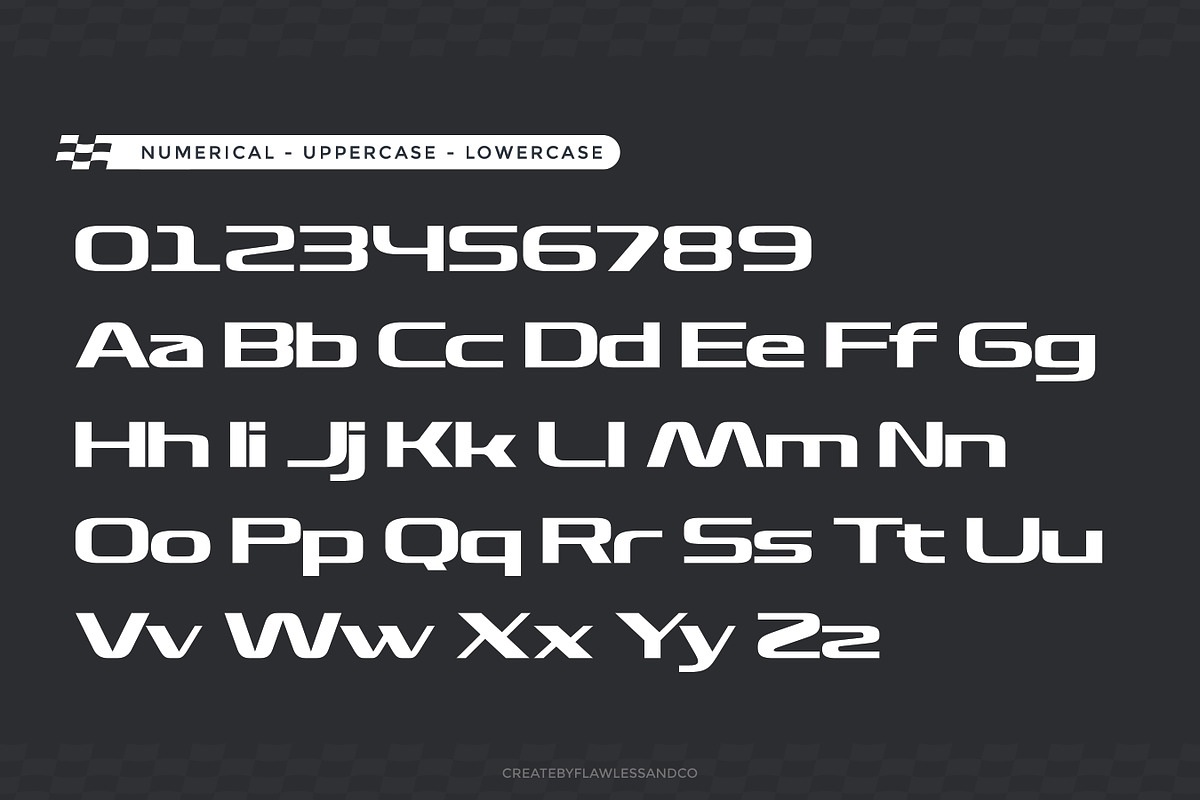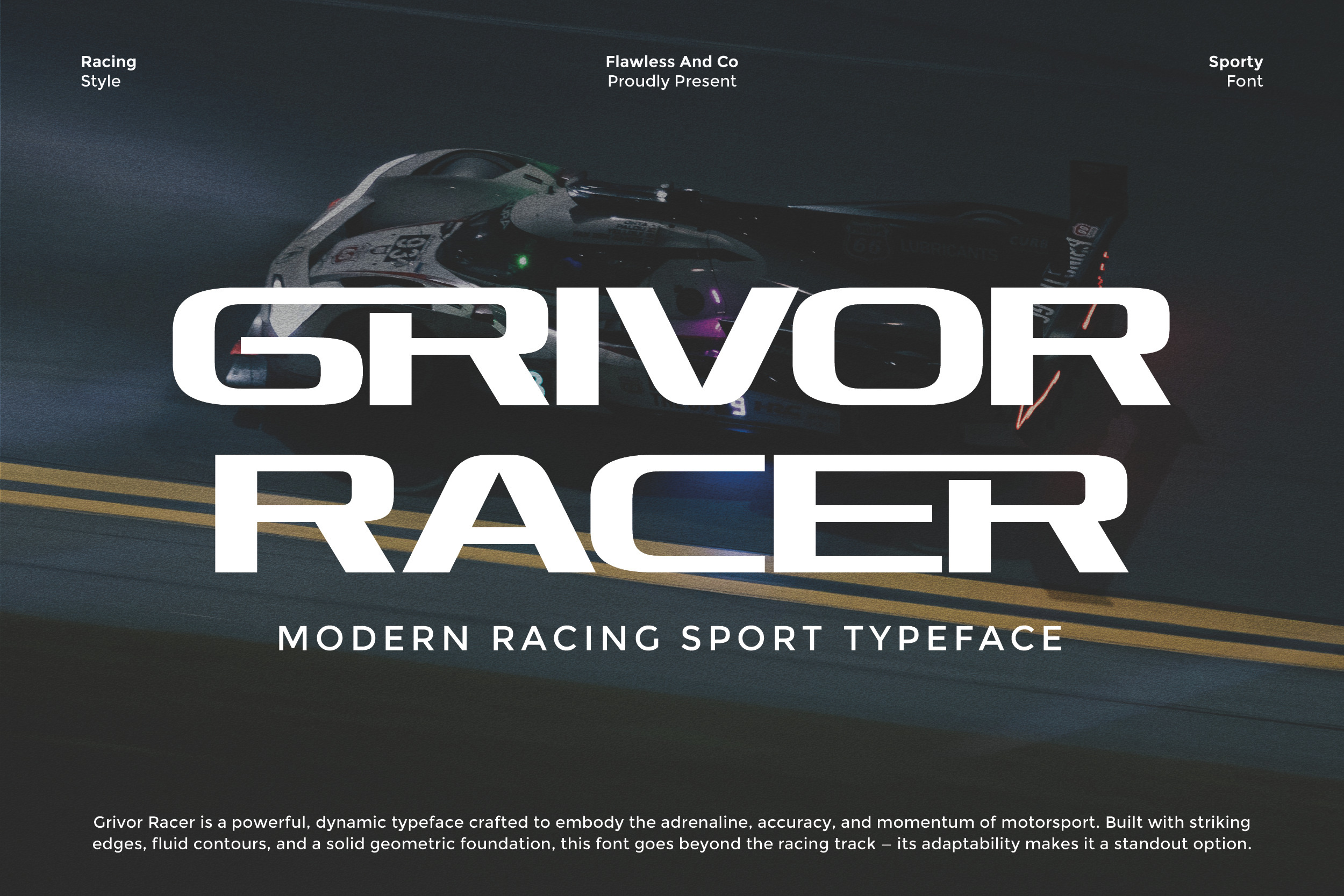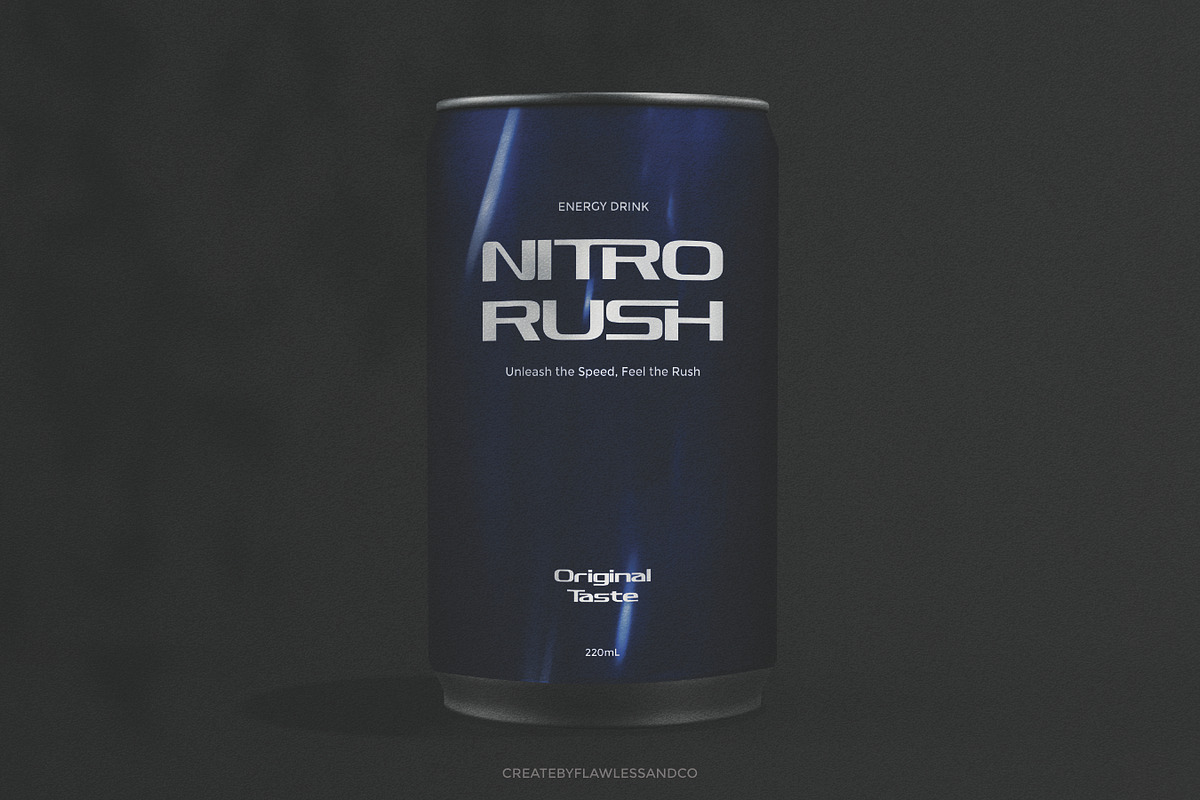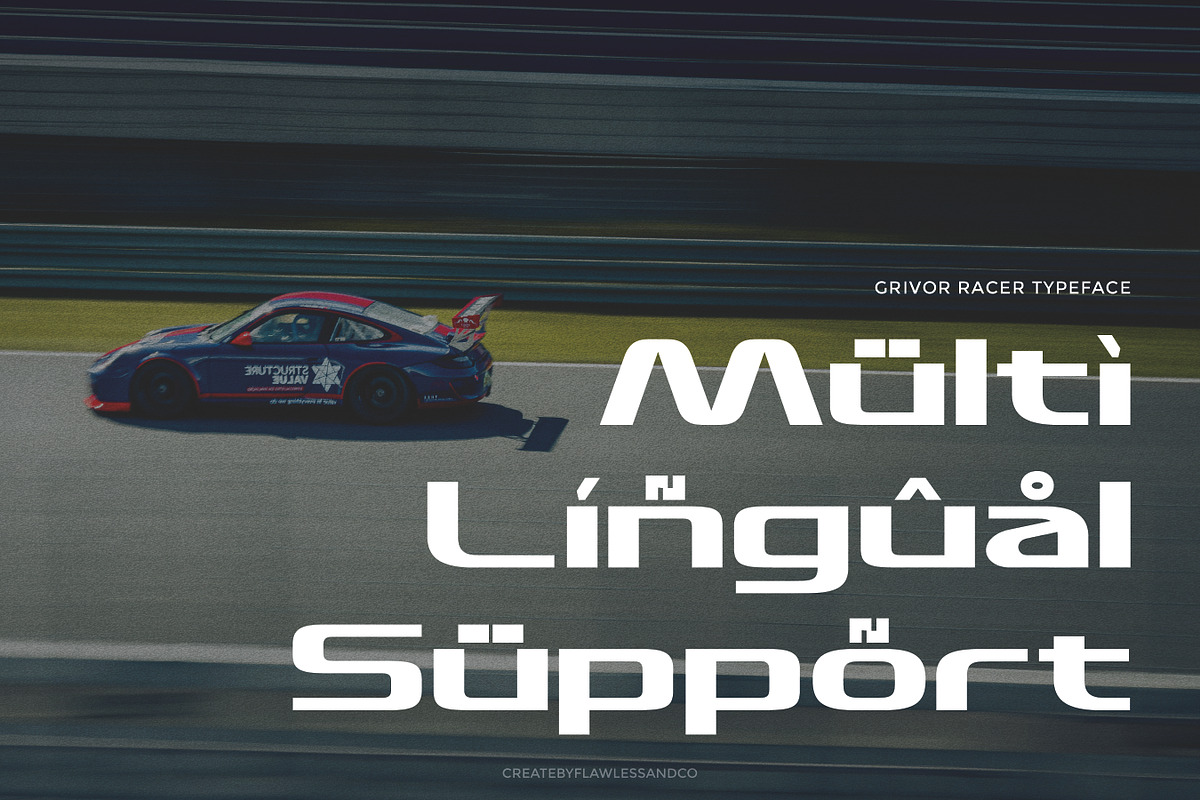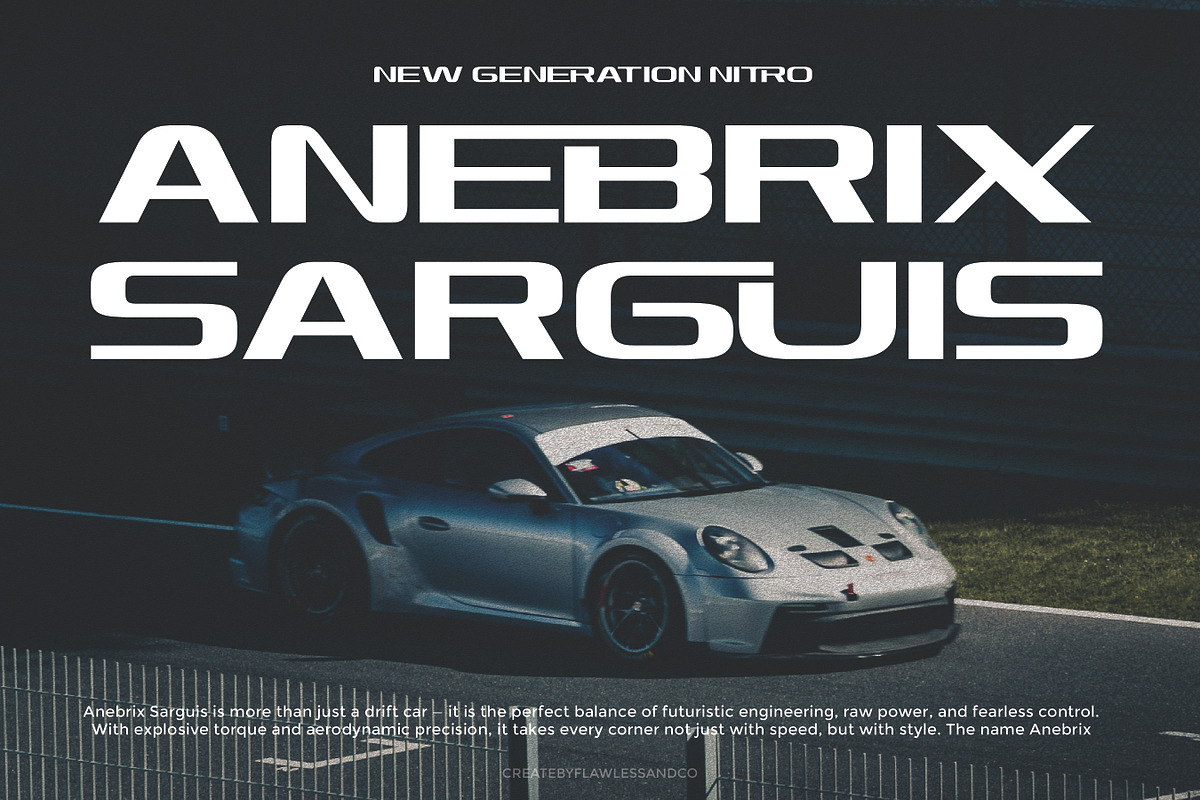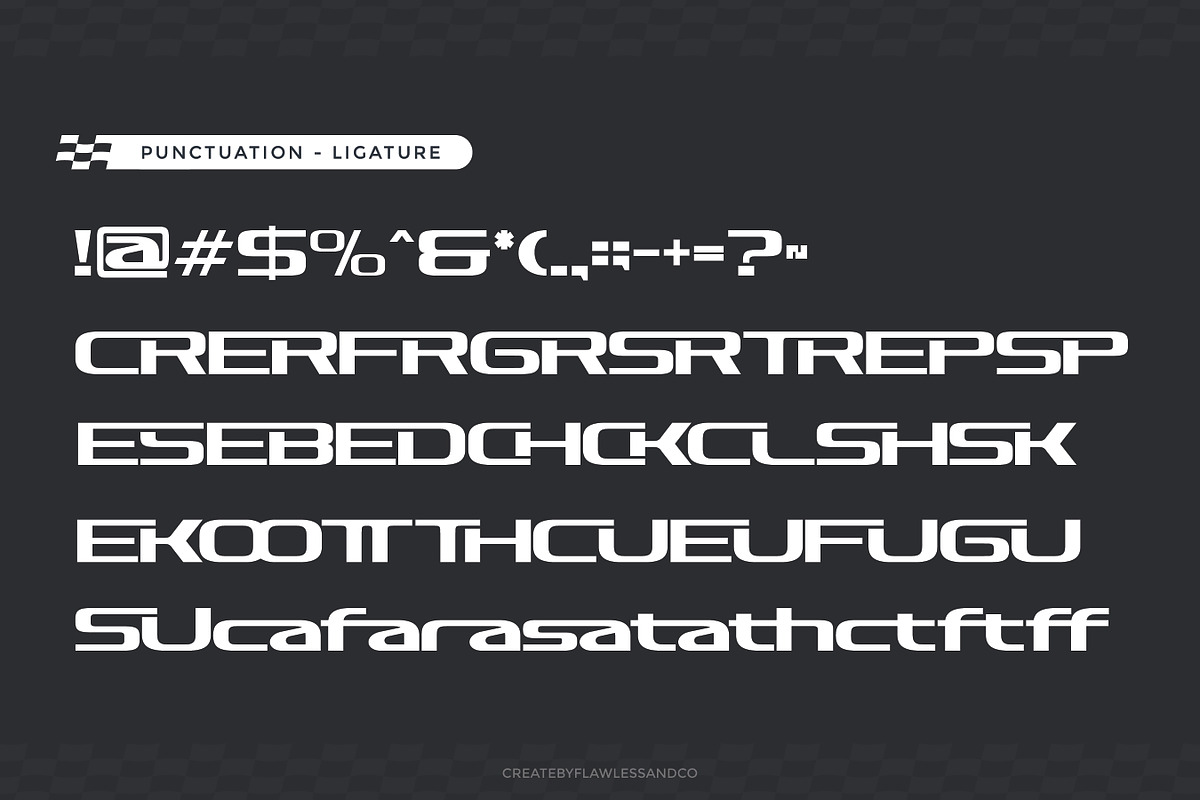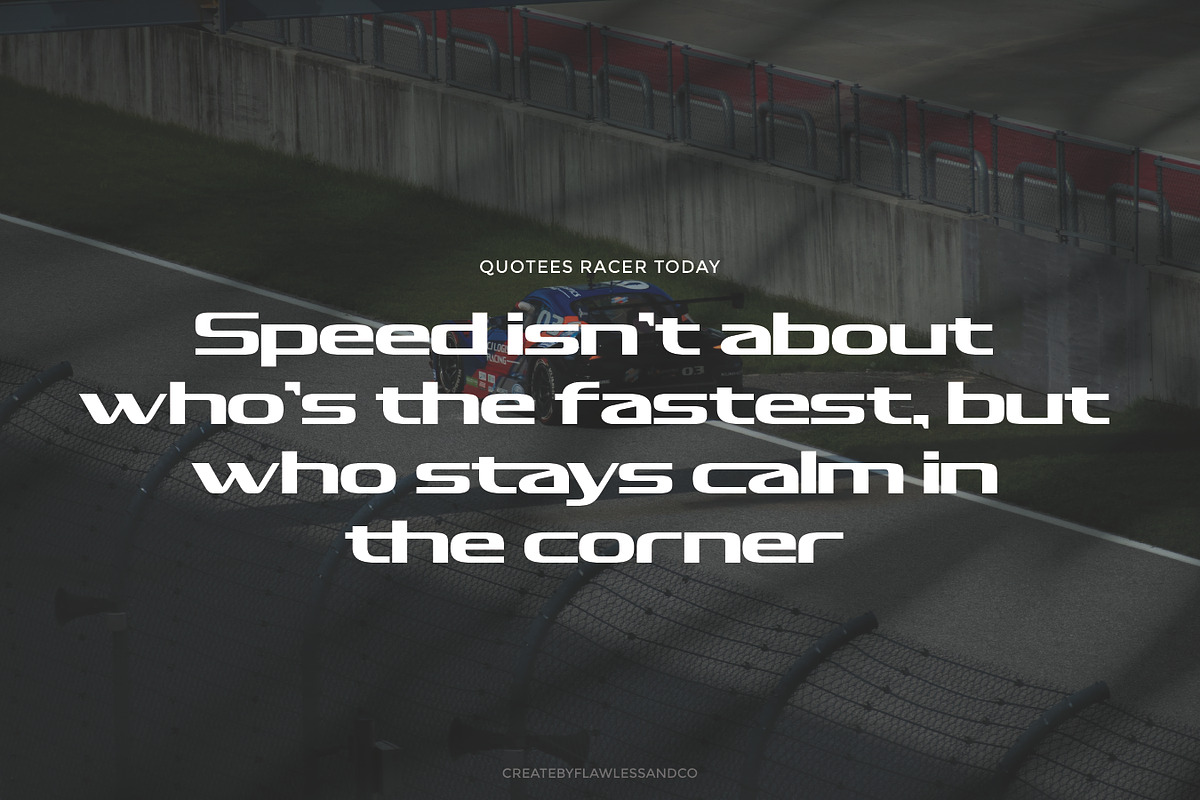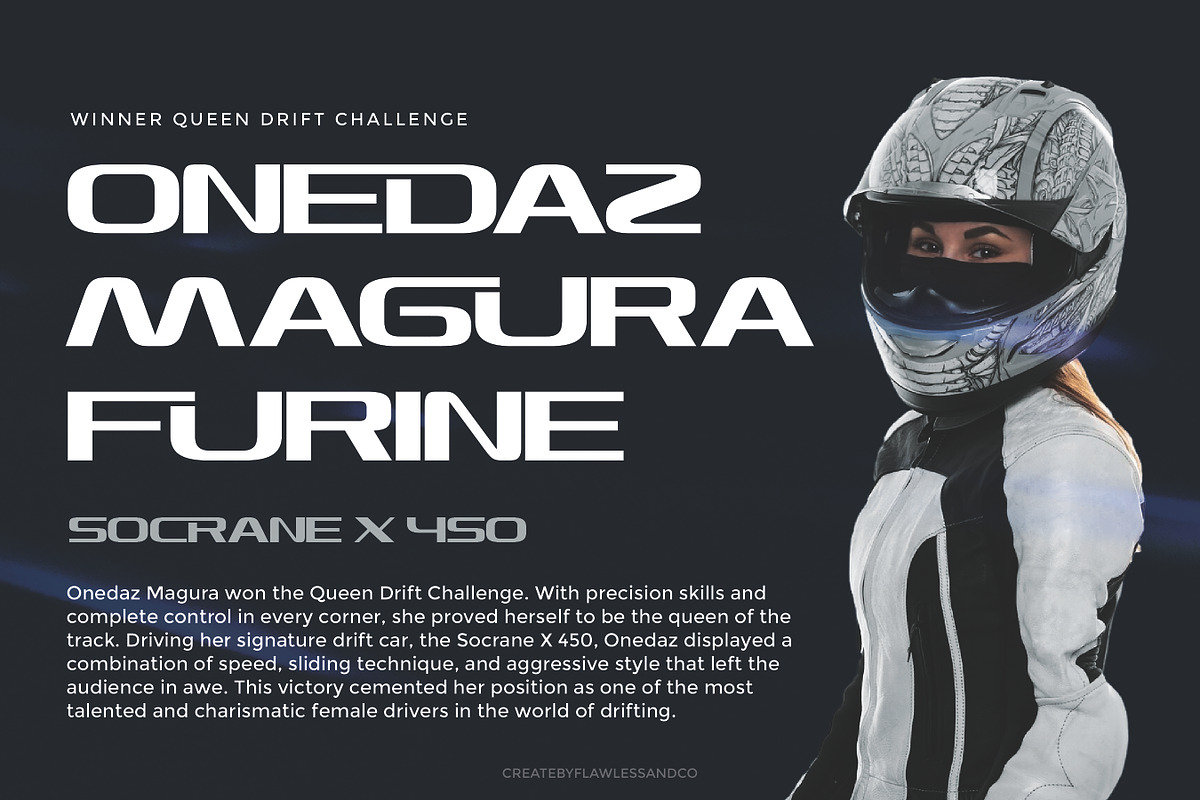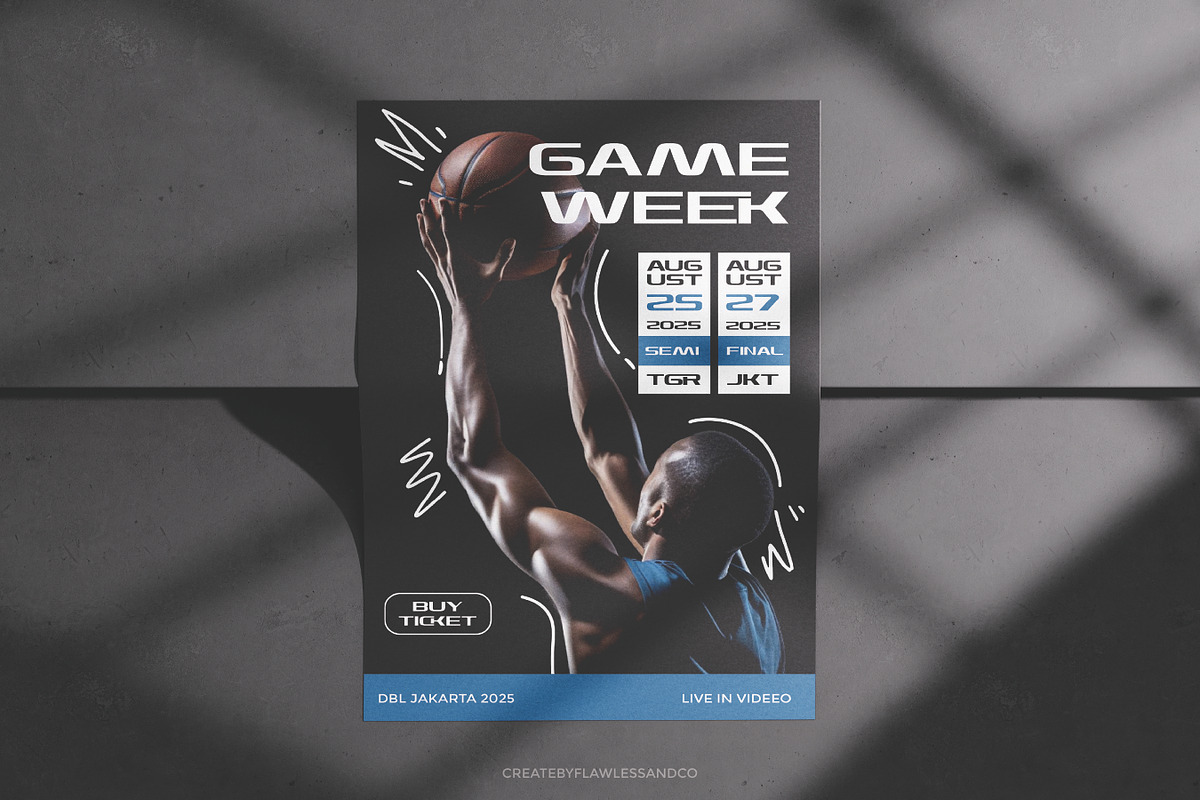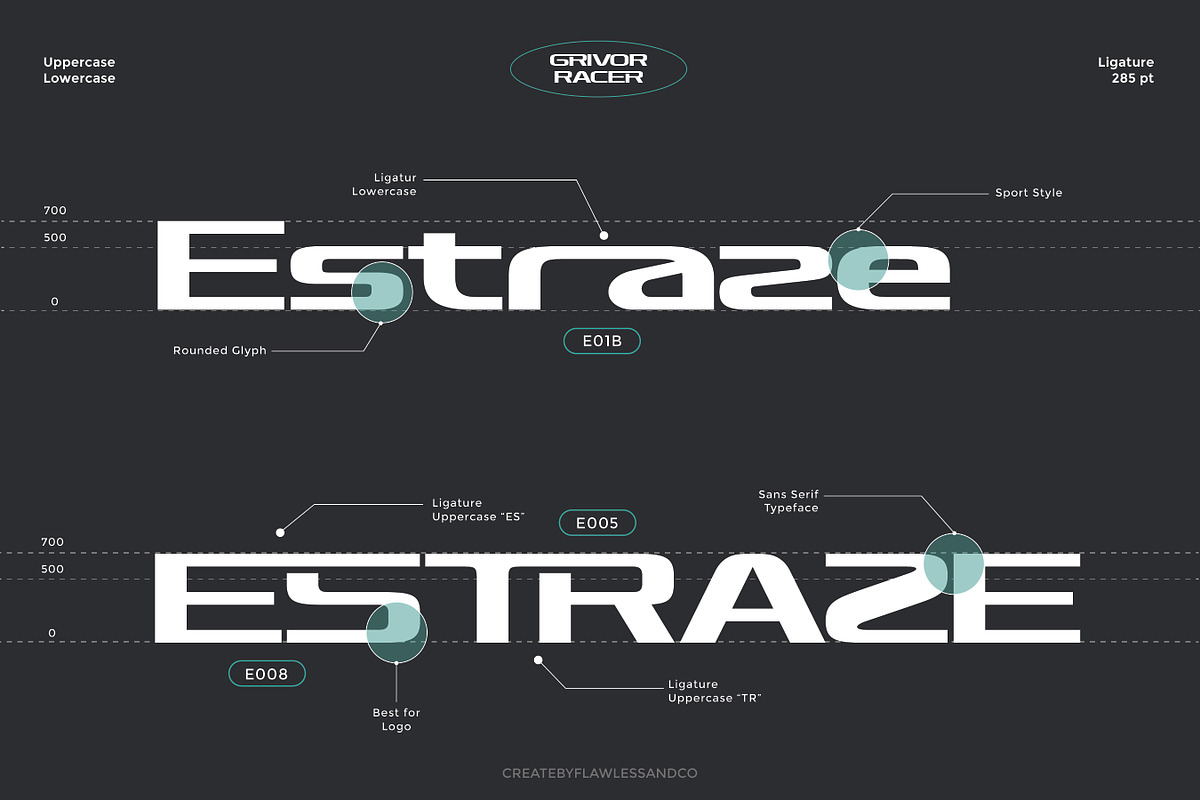
Grivor Racer - Modern Sport Font
Grivor Racer - Modern Sport
Grivor Racer is a bold and high-energy typeface designed to capture the speed, precision, and power of modern motorsport. With sharp cuts, aerodynamic curves, and a geometric build, this racing sport logo font is made to fuel adrenaline-driven designs. Perfectly balanced between aggressive style and versatile readability, Grivor Racer stands out not only on the track but also in branding, logos, posters, and sports-themed projects.
Who Should Use Grivor Racer?
Grivor Racer is made for designers, creatives, and brands who want to inject speed, energy, and a sporty edge into their visuals. It’s the ideal choice for:
- Sports teams and event organizers seeking bold, dynamic branding
- Automotive and motorsport industries looking for adrenaline-packed typography
- Designers working on energetic logos, posters, and merchandise
- Fitness, racing, and streetwear brands aiming for a modern, high-impact look
- Creatives who want a typeface that embodies movement, precision, and power
A Must-Have Font for "Brand and Logo" Creators and Designers
Grivor Racer is the ultimate font for brand builders and logo creators who want to stand out with bold, dynamic, and unforgettable visuals. Its strong geometric design, sharp edges, and sporty vibe make it a must-have tool for anyone crafting powerful brand identities, impactful logos, and eye-catching promotional materials. Whether for sports, automotive, or lifestyle branding, this font ensures your designs leave a lasting impression.
Why Choose Grivor Racer for "Brand and Logo" Projects?
Grivor Racer combines speed, power, and precision — making it the perfect choice for brand and logo projects that demand energy and impact. Its bold racing-inspired style conveys strength and motion, while the clean geometric shapes keep your design professional and versatile. Whether you’re building a sports brand, automotive identity, or lifestyle logo, Grivor Racer ensures your visuals are striking, memorable, and built to perform across print, digital, and merchandise.
Suitable For:
- Sports branding and athletic apparel
- Automotive logos and racing event identities
- Esports and gaming visuals
- Bold poster and flyer designs
- Modern product packaging and merchandise
- Social media graphics with high-impact style
- Dynamic headlines for magazines and advertising